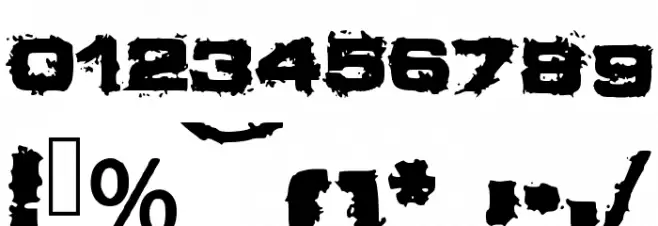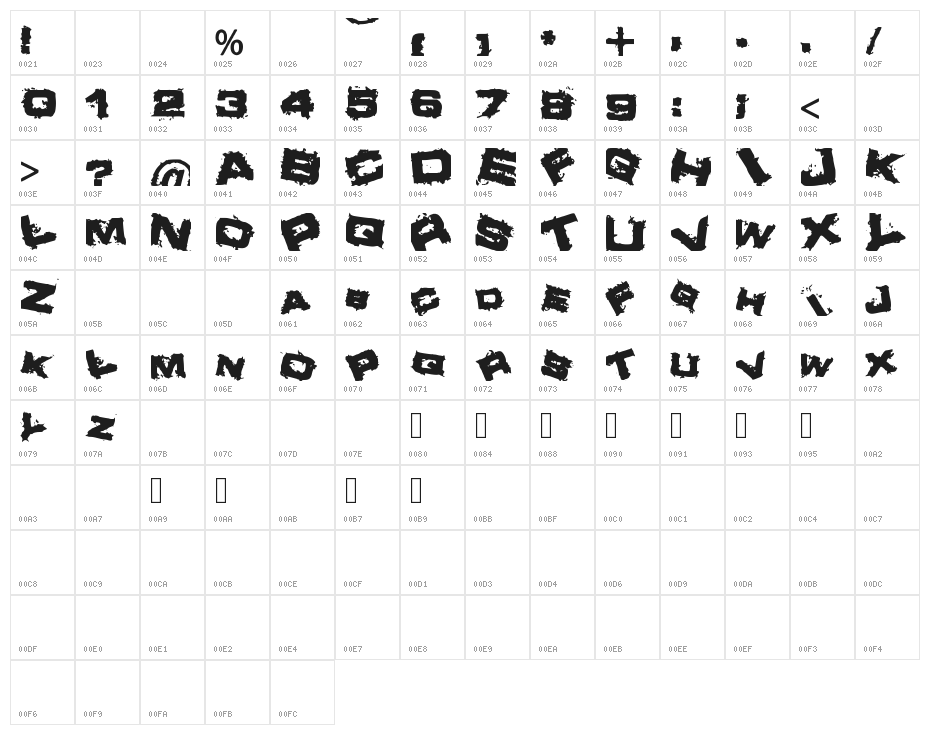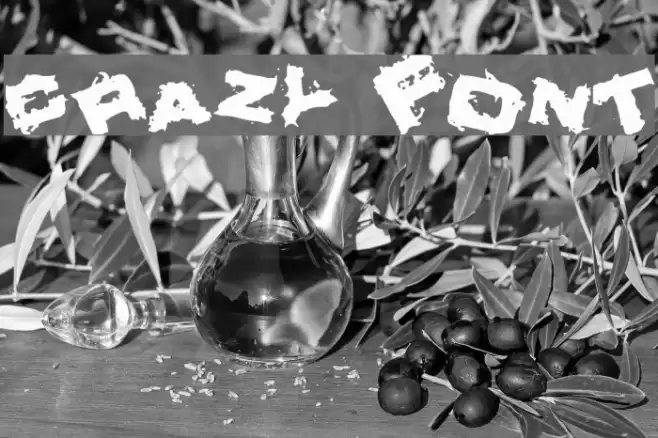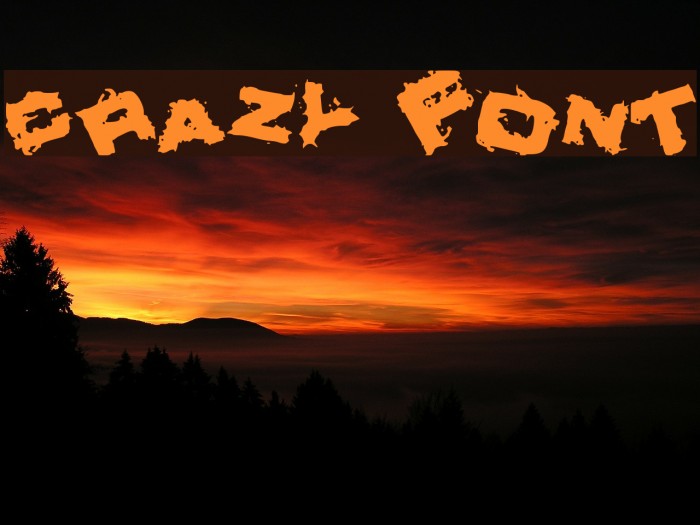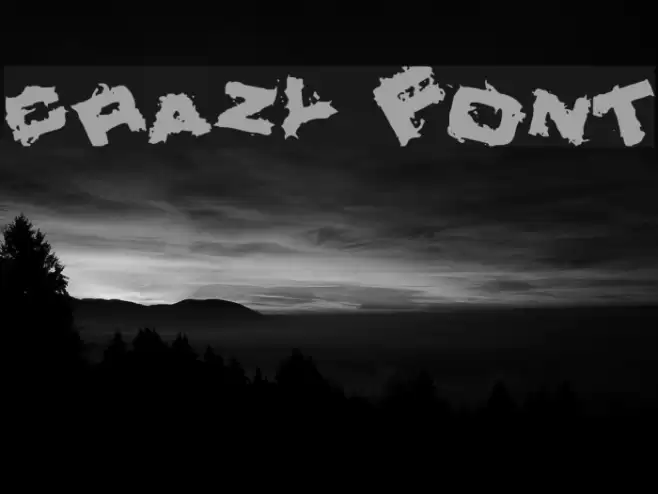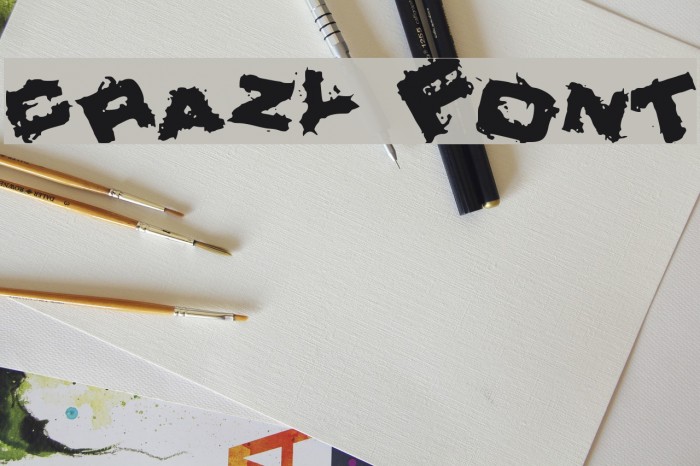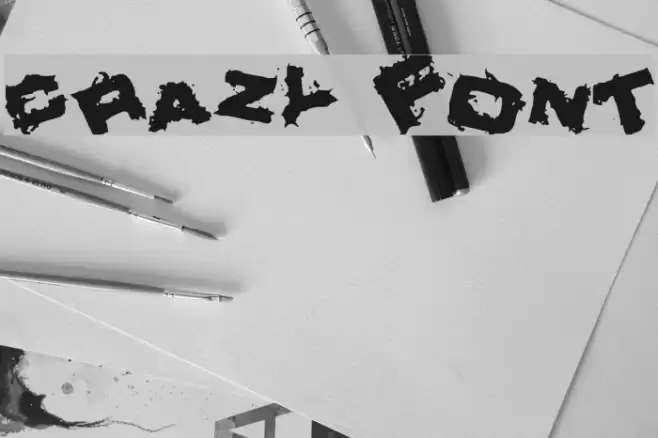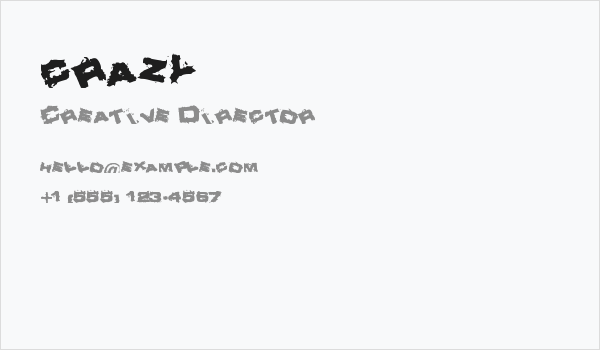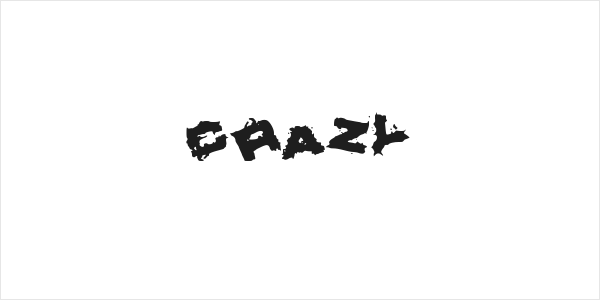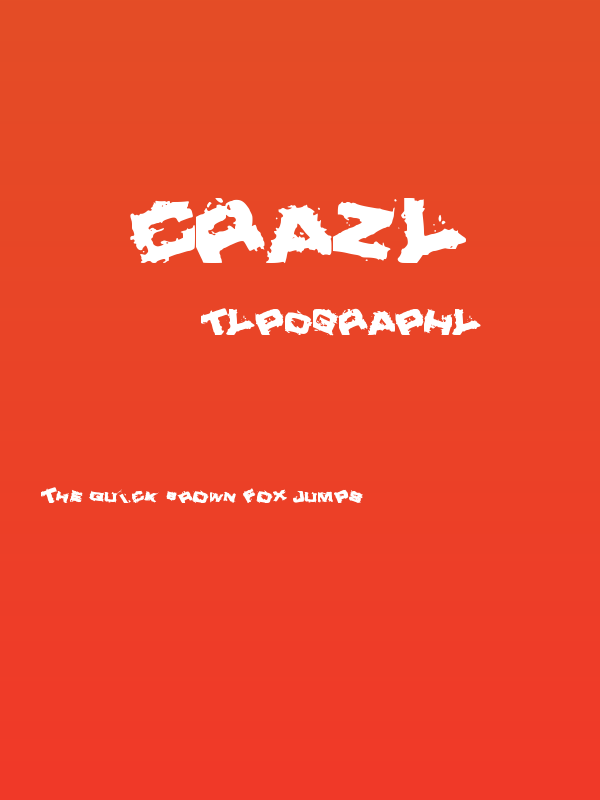
crazy Font
crazy Description
This font features a bold and distressed style, characterized by rough, jagged edges and an uneven texture that gives it a grungy, chaotic appearance. The letters are heavily stylized, with irregular shapes and a sense of movement, as if they are in a state of decay or erosion. This creates a dynamic and edgy look, perfect for designs that require a rebellious or unconventional aesthetic. The numbers and special characters follow the same distressed theme, maintaining consistency across the entire typeface.
| Overall Style | Grunge, Edgy, Distressed |
| Proposed Projects | Ideal for music album covers, edgy posters, streetwear branding, or any project needing a rebellious, unconventional look. |